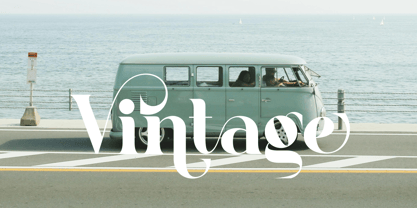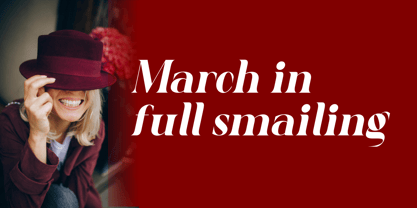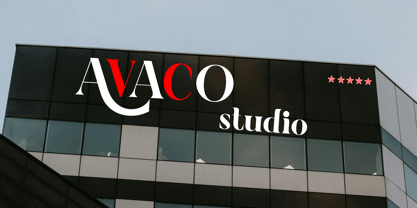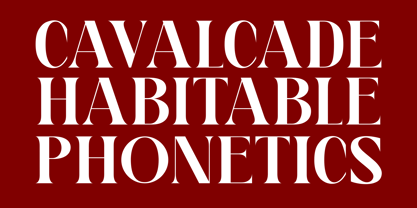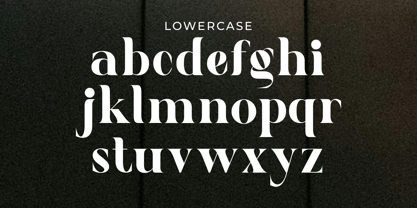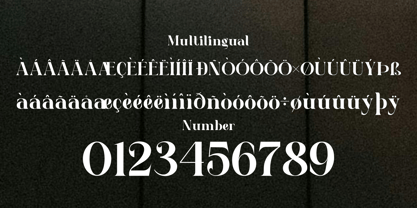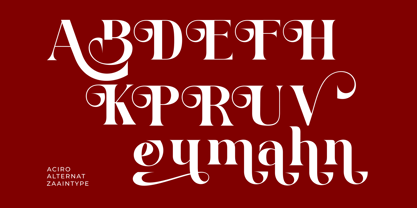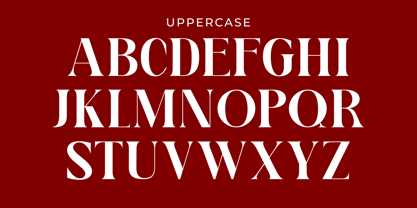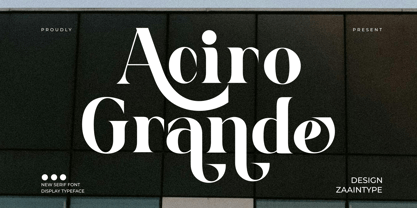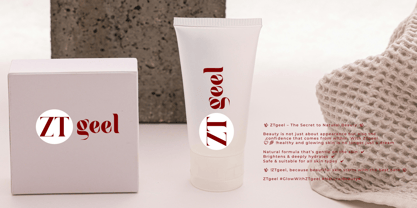
Aciro Grande
by Zaain Type
The Aciro Grande Font Family was designed by Ju Naen and published by Zaain Type. Aciro Grande contains 2 styles and family package options.
Aciro Grande is an elegant serif font that blends classic luxury with a modern touch. Available in two styles:
Regular – Bold, strong, and highly readable, perfect for headlines and body text.
Oblique – Subtly slanted, dynamic, and expressive, ideal for accents and standout designs.
With a balance of elegance and versatility, Aciro Grande enhances your visual identity in branding, editorial, and premium design projects